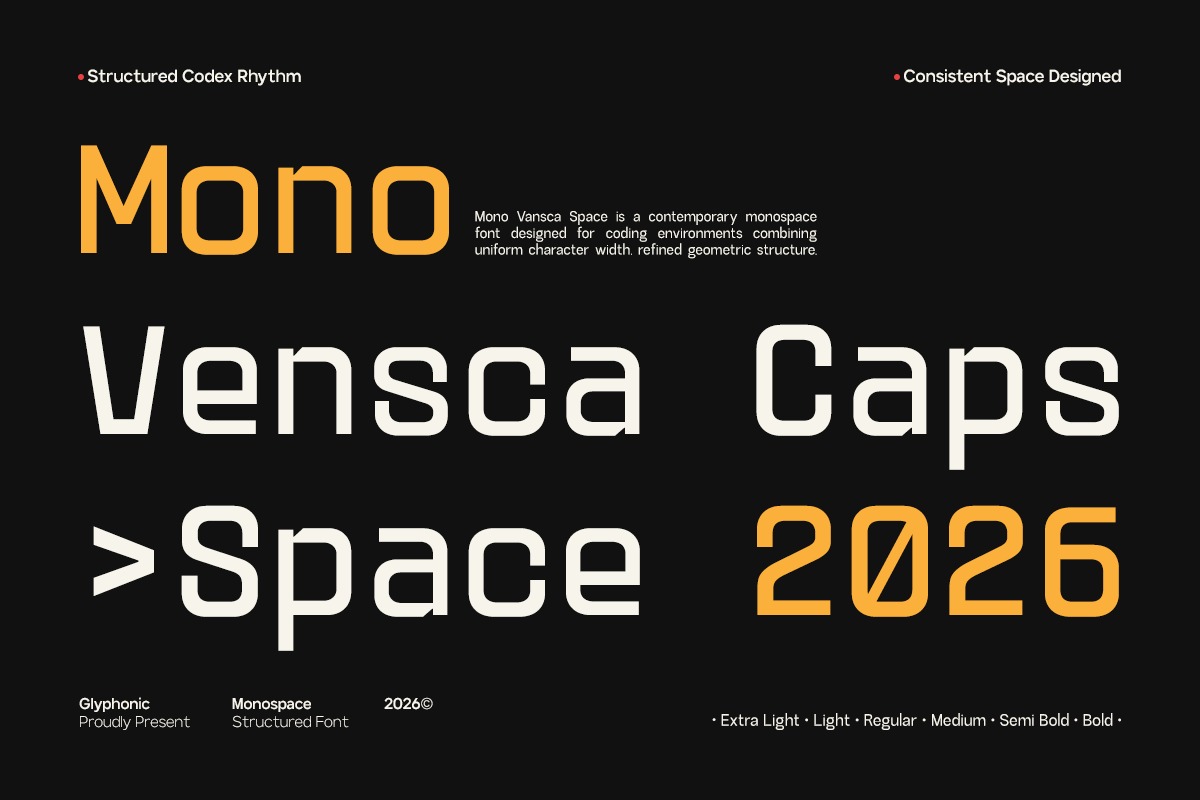
GC Vensca Mono Font Family
GC Vensca Mono Font Family is a premium-quality font developed to enhance your work with a polished, modern, and visually elevated look. GC Vensca Mono – Modern Monospace is a contemporary monospaced typeface designed with clean structure and modern precision. Built on a consistent grid system and refined proportions, Vensca Mono delivers a clear, technical, and confident typographic voice suited for modern visual communication.
With uniform character spacing, sharp detailing, and balanced construction, GC Vensca Mono is crafted to perform seamlessly across both digital and print media. Its structured monospace design makes it ideal for coding interfaces, tech branding, editorial layouts, data-driven visuals, and modern minimalist design projects—where clarity and alignment are essential.
As a variable typeface, GC Vensca Mono offers flexible weight control, allowing designers to fine-tune hierarchy and adapt typography across multiple layouts and platforms with precision. Despite its technical foundation, the font maintains strong legibility and a clean visual rhythm, ensuring consistency without losing character.
Whether used for structured interfaces, modern headlines, or grid-based compositions, GC Vensca Mono brings precision, clarity, and contemporary monospace aesthetics to your typography.